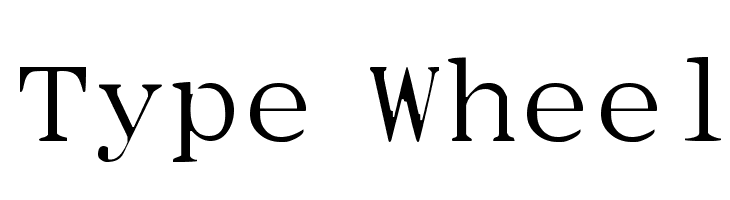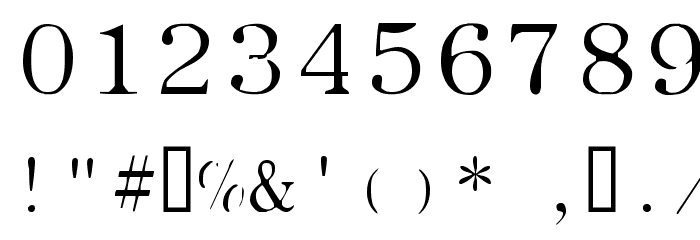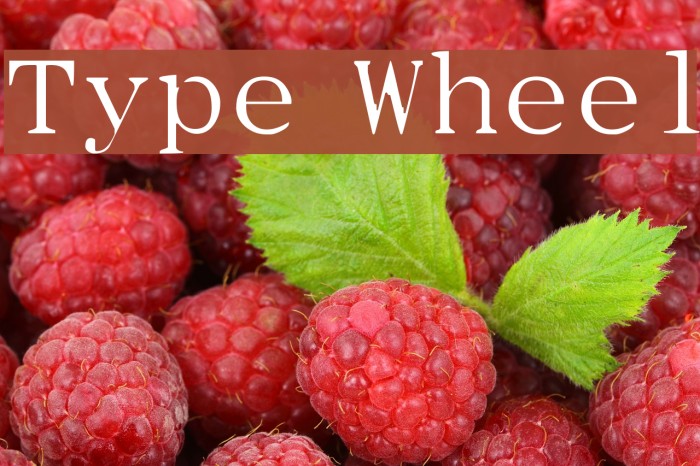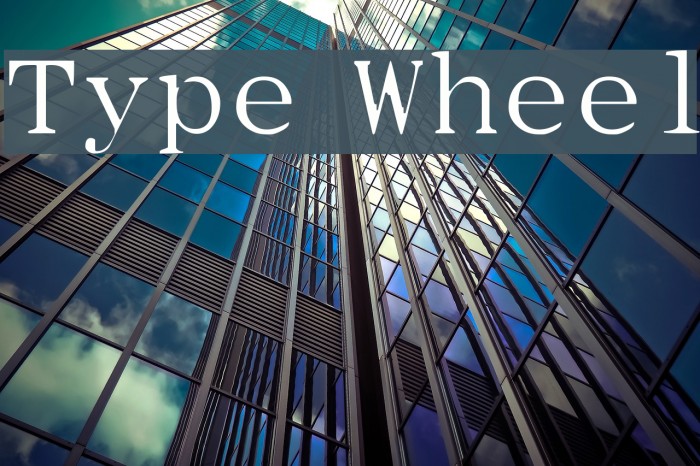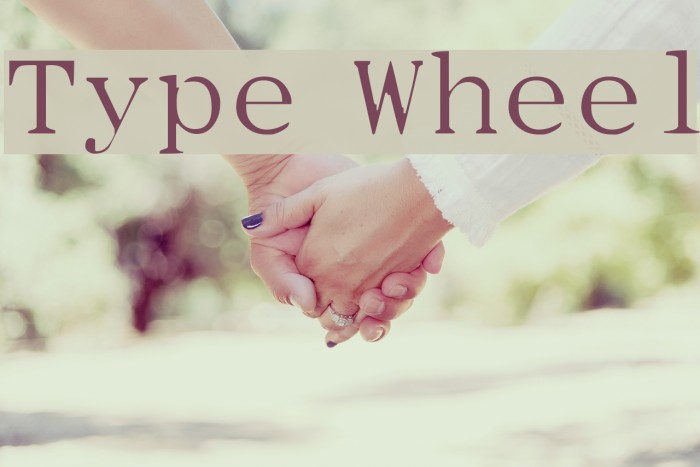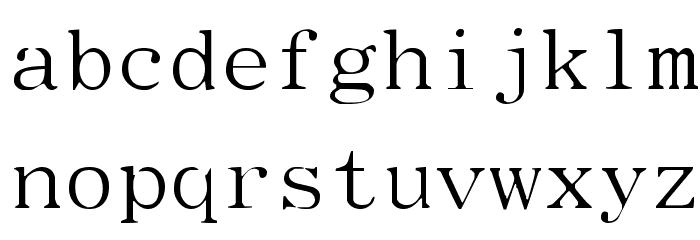
Type Wheel
This font exhibits a classic serif style with elegant and refined strokes. The characters are well-proportioned, featuring distinct serifs that add a touch of sophistication. The uppercase letters are bold and commanding, while the lowercase letters maintain a graceful flow. Numbers are clear and easy to read, making them suitable for a variety of applications. The special characters are thoughtfully designed, complementing the overall aesthetic. This font's timeless appeal makes it versatile for both traditional and modern projects.
A classic serif font with elegant strokes and refined serifs.
- Proposed Projects: Ideal for editorial design, book covers, formal invitations, and branding projects that require a touch of elegance.
- Category: Serif
- Overall Style: Classic